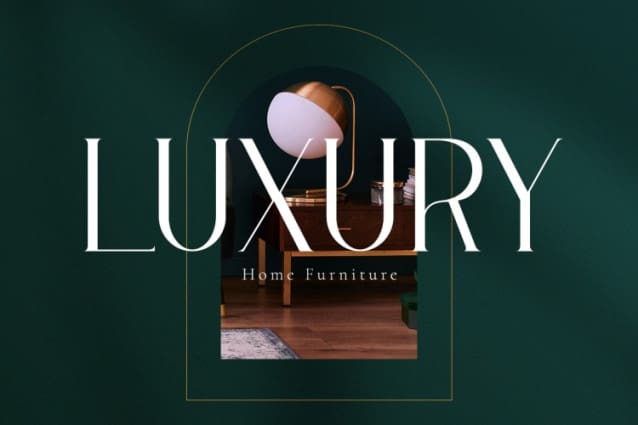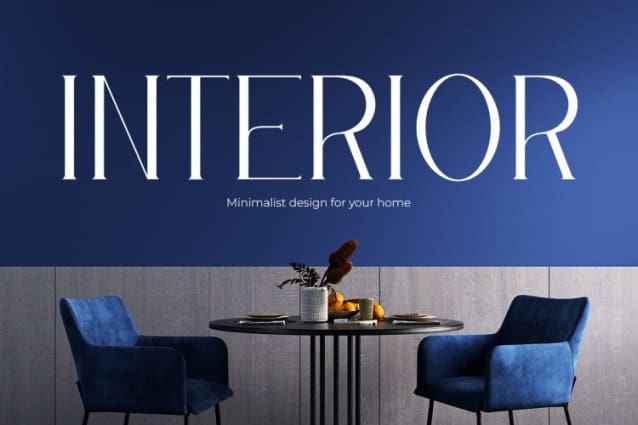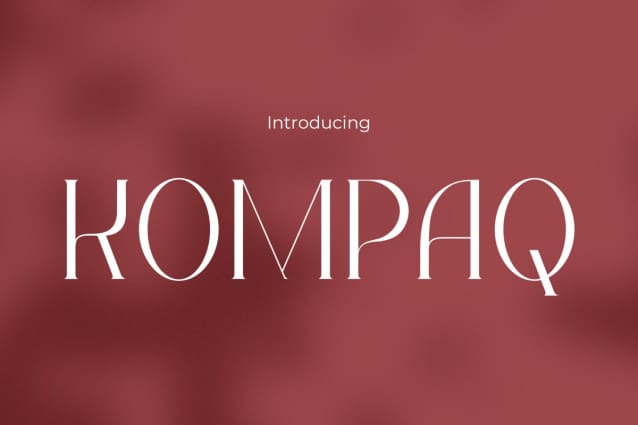
Kompaq Font
Kompaq Font – Radiating Luxury and Elegance in Every Glyph. In the fast-paced world of design, refinement and elegance are at the core of every masterpiece. That’s why the KOMPAQFont is here to offer an unmatched touch to your every project. With a captivating allure and unmatched class, KOMPAQ Font  exudes a mesmerizing aura of luxury, making each glyph sparkle like a gem amidst your sea of creativity.
Crafted with a harmonious blend of finesse and sophistication, this font emits an undeniable sense of exclusivity. From logo designs to promotional materials, KOMPAQ ensures an unforgettable impression, imparting an elegant touch that lingers on every project. Get ready to elevate your design standards to new heights with the KOMPAQ Font, where luxury meets elegance in every glyph.